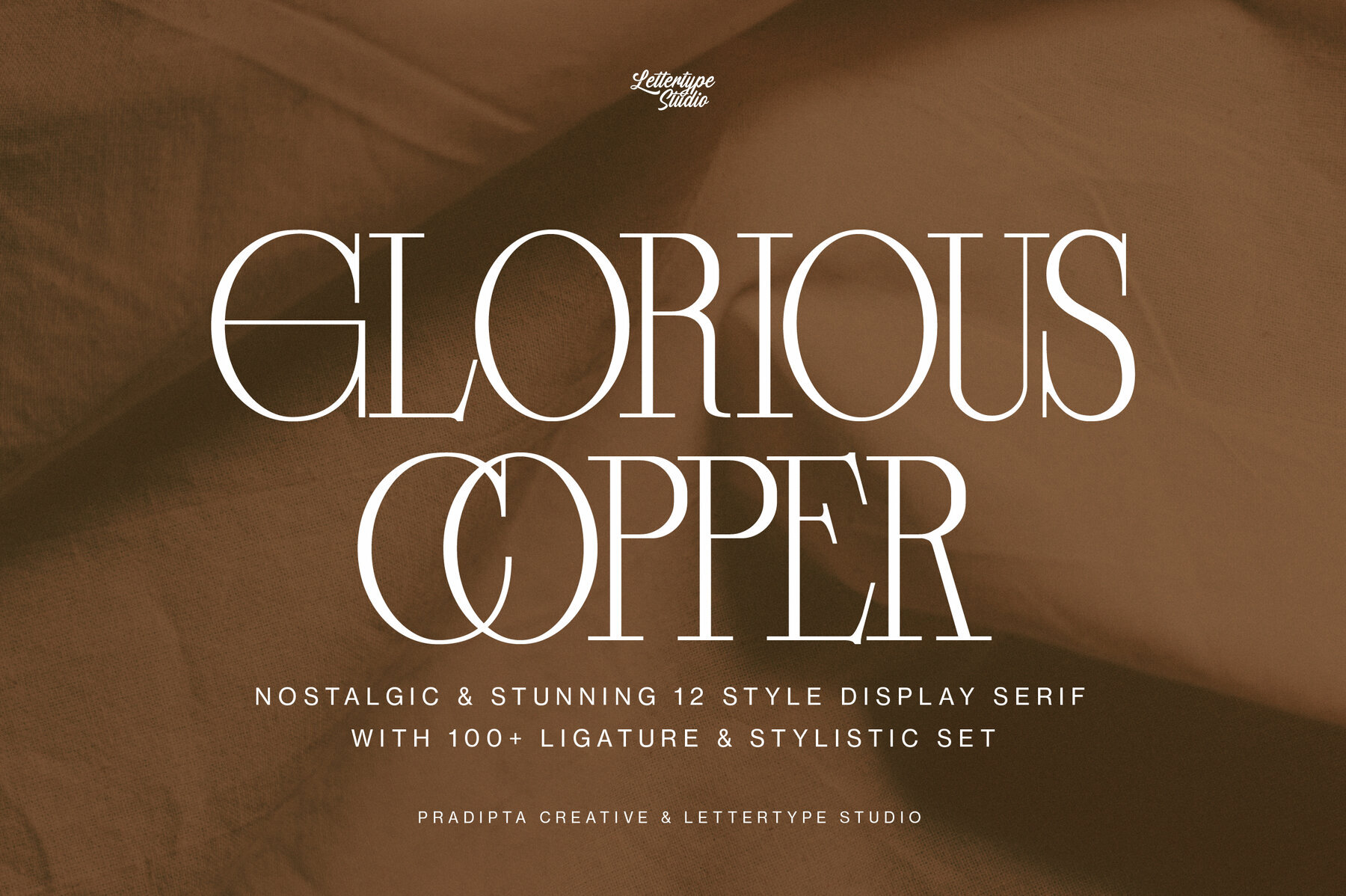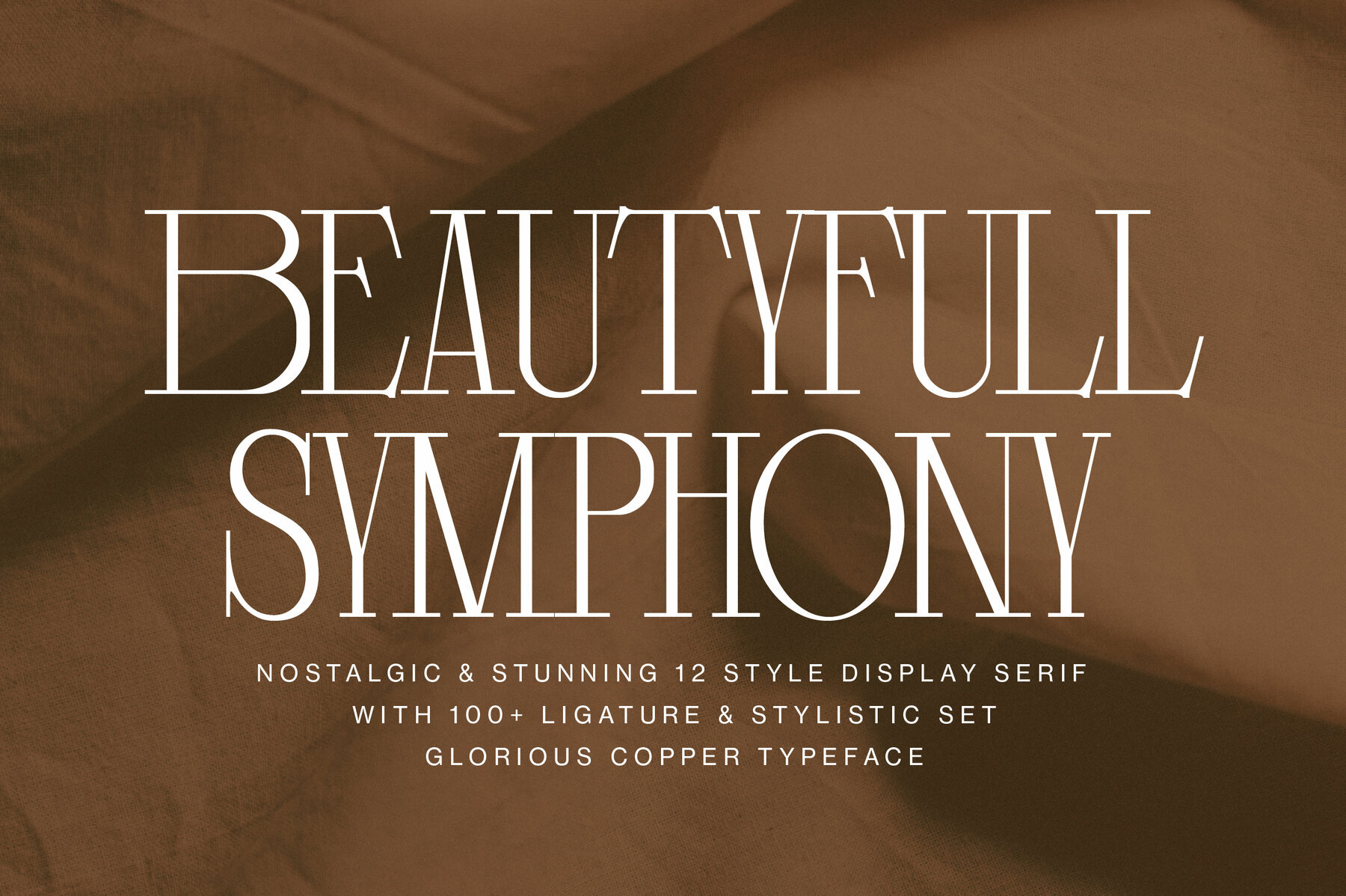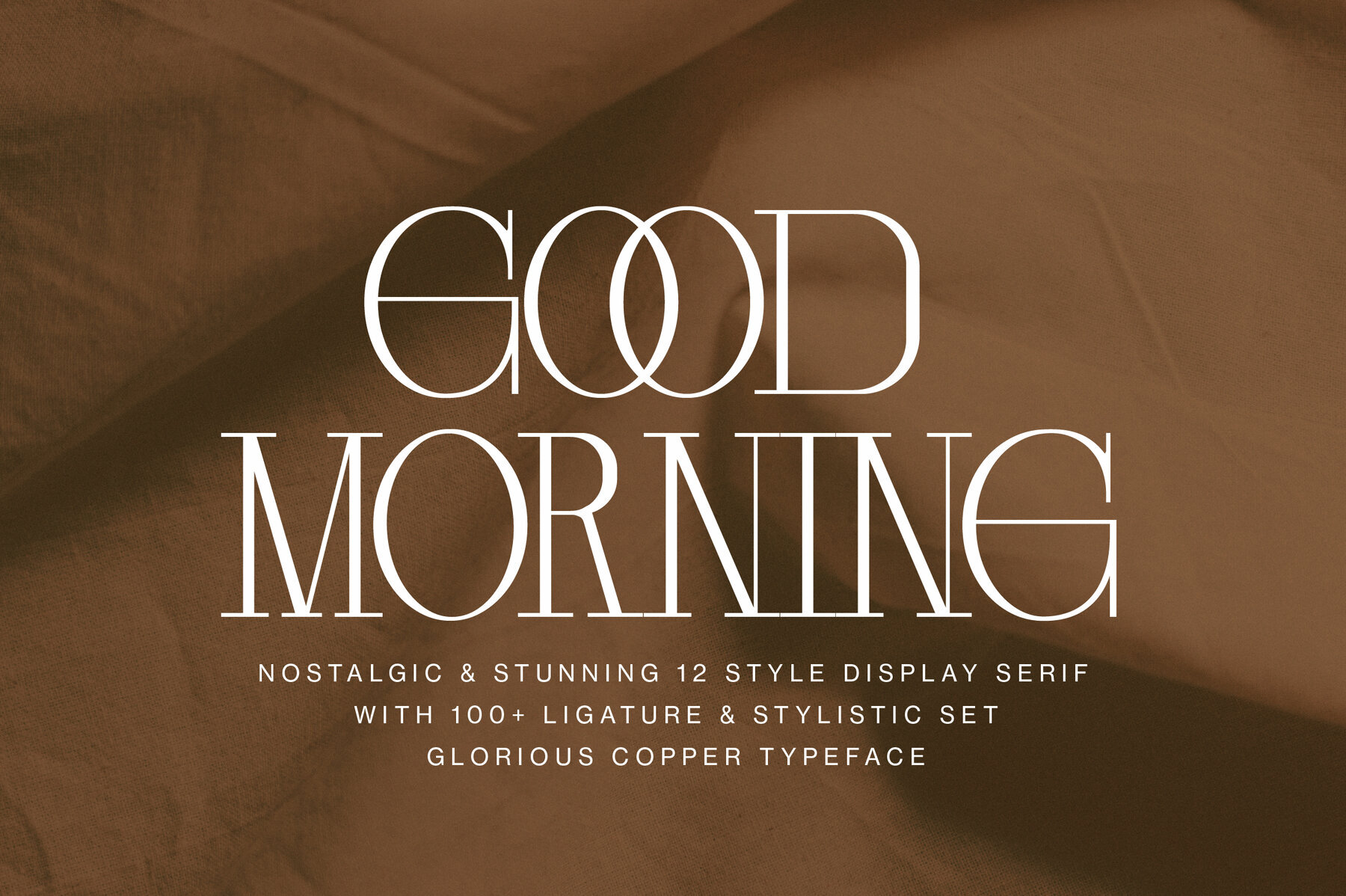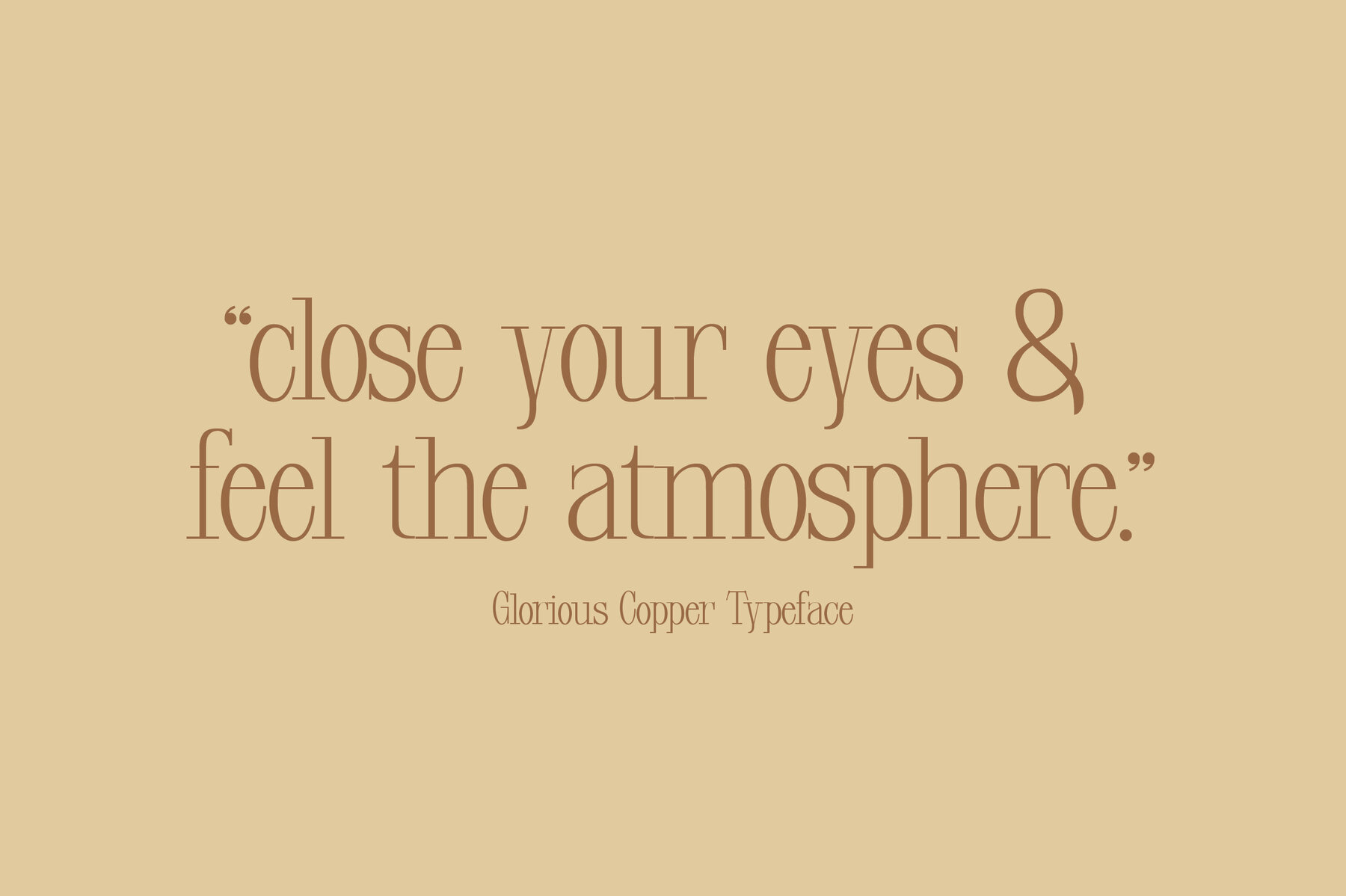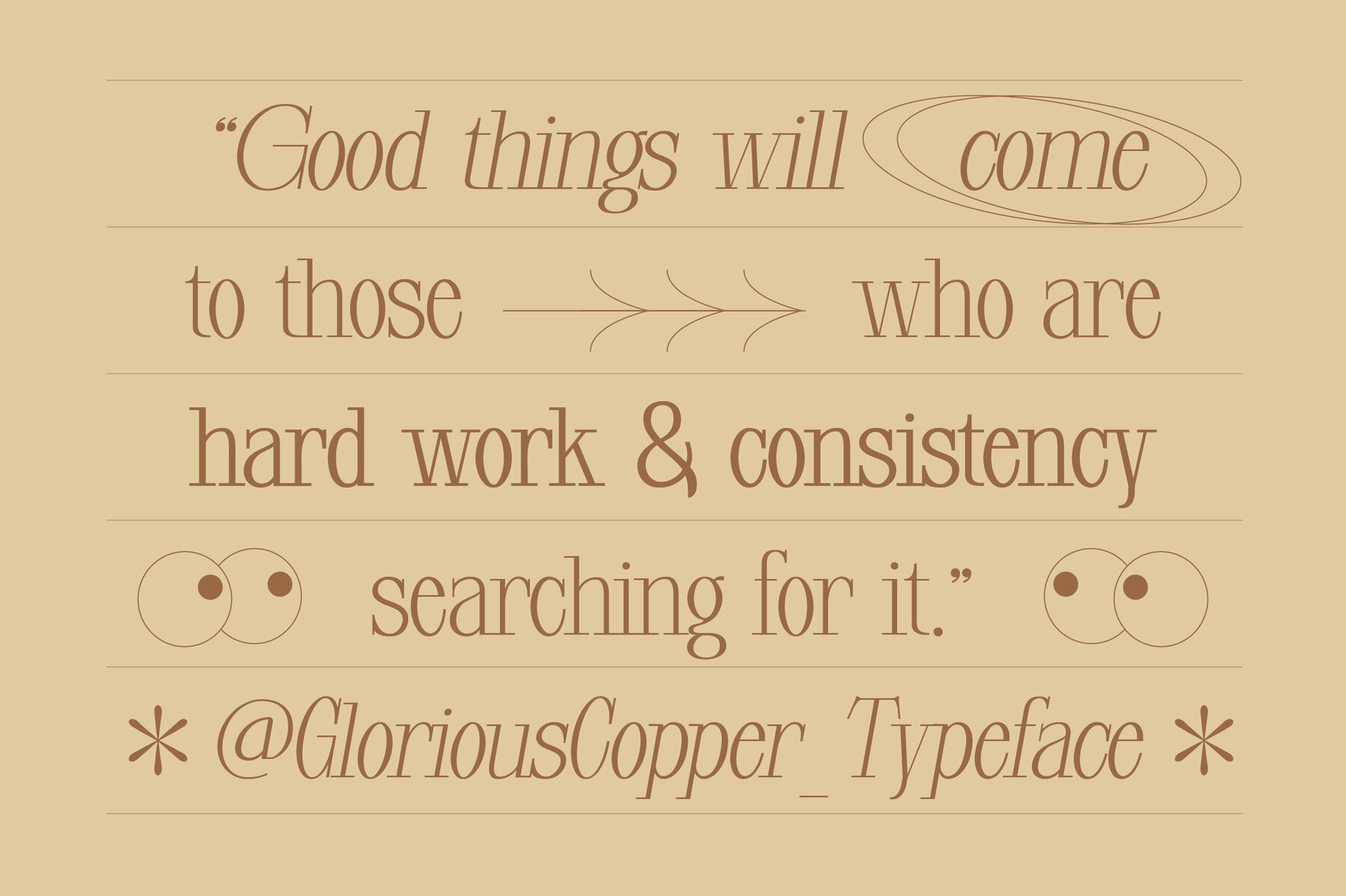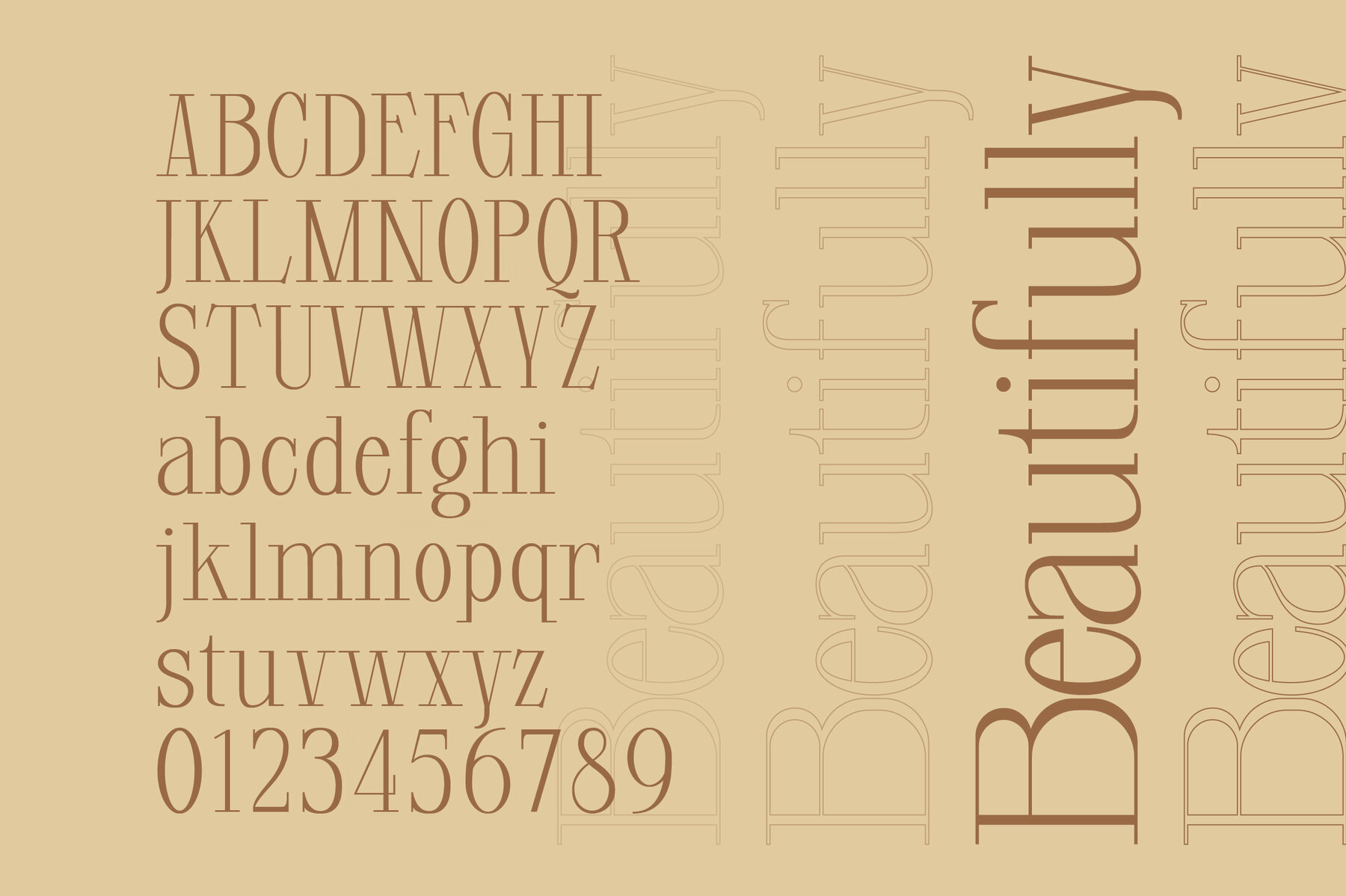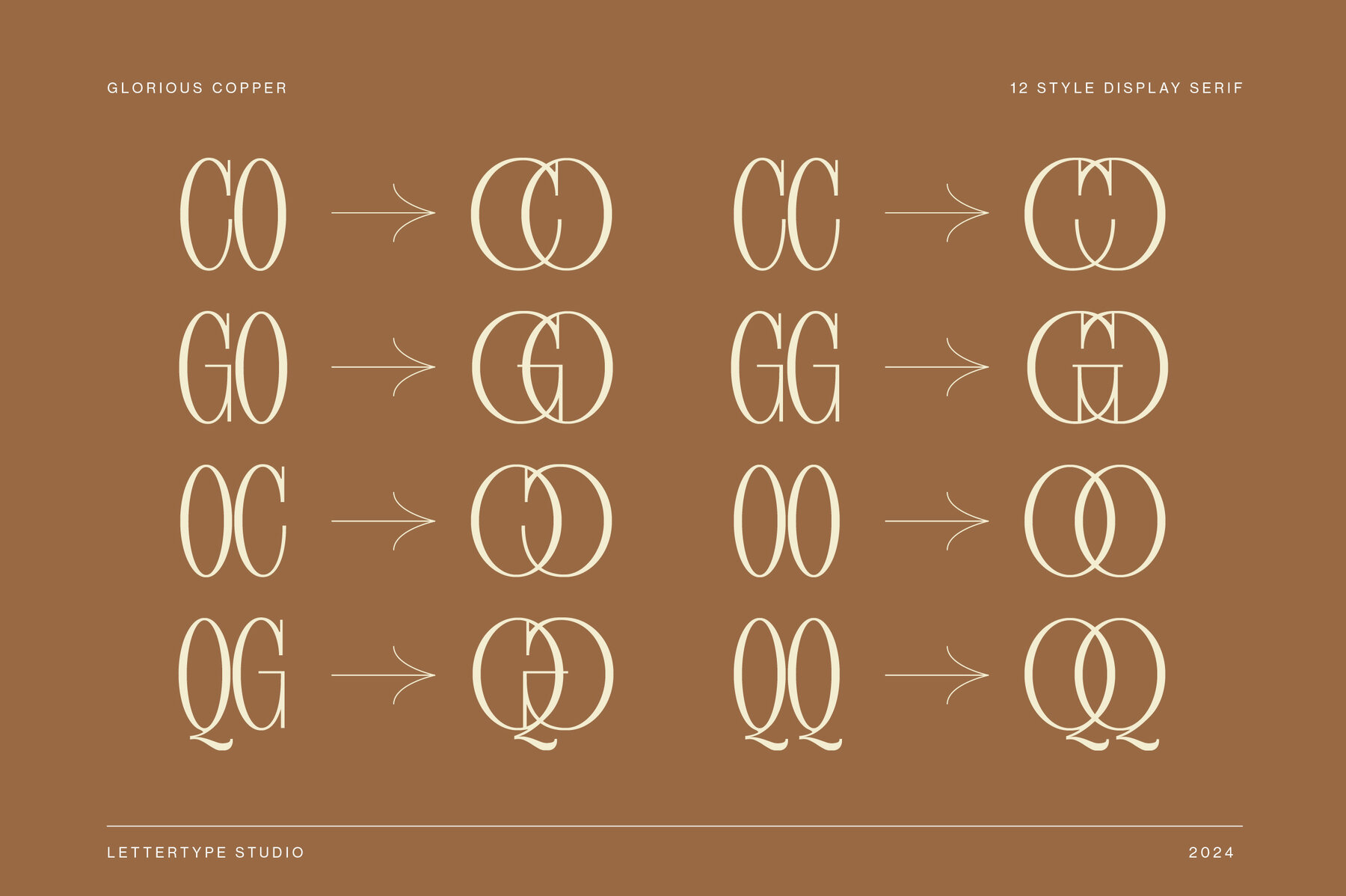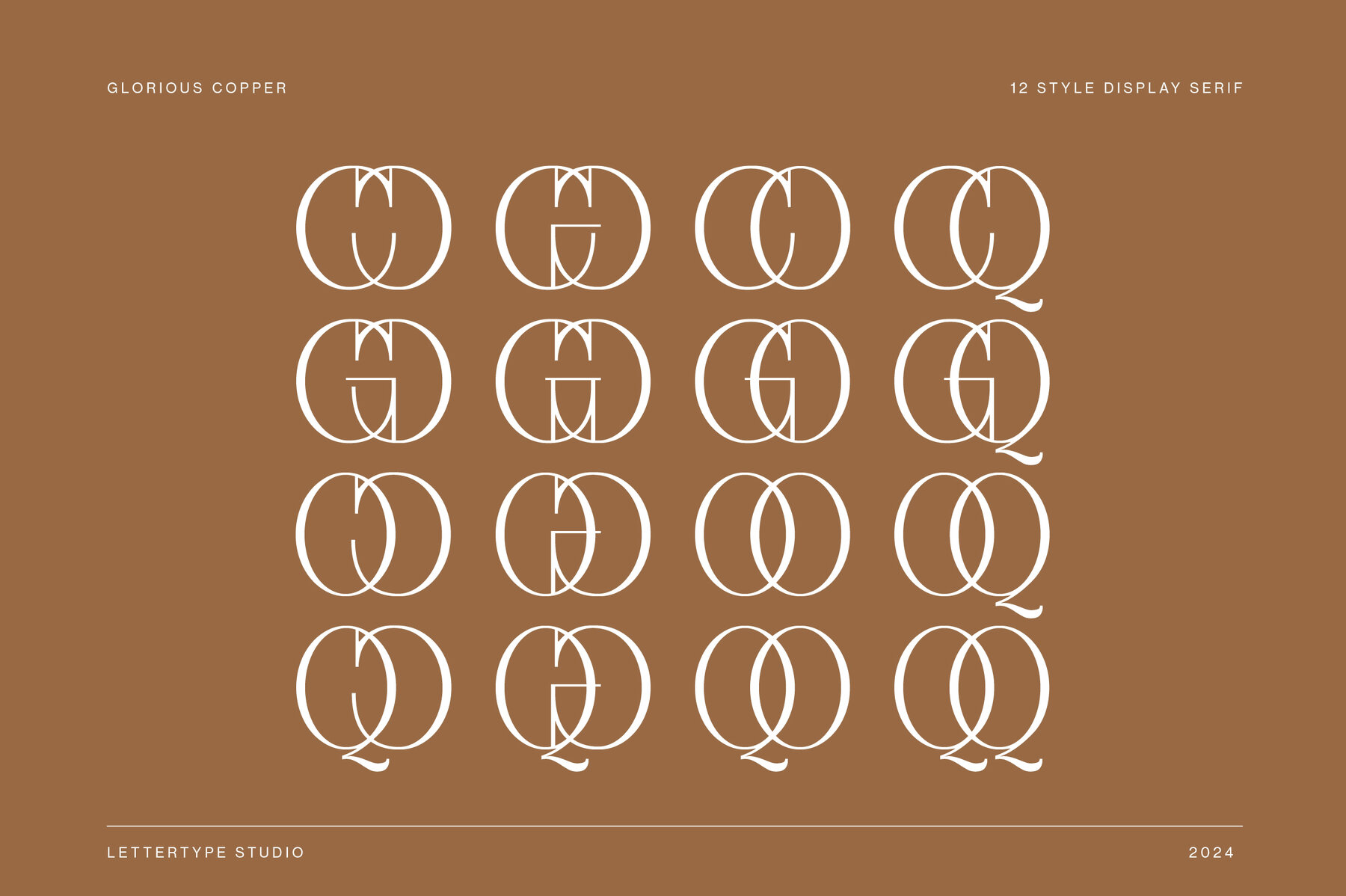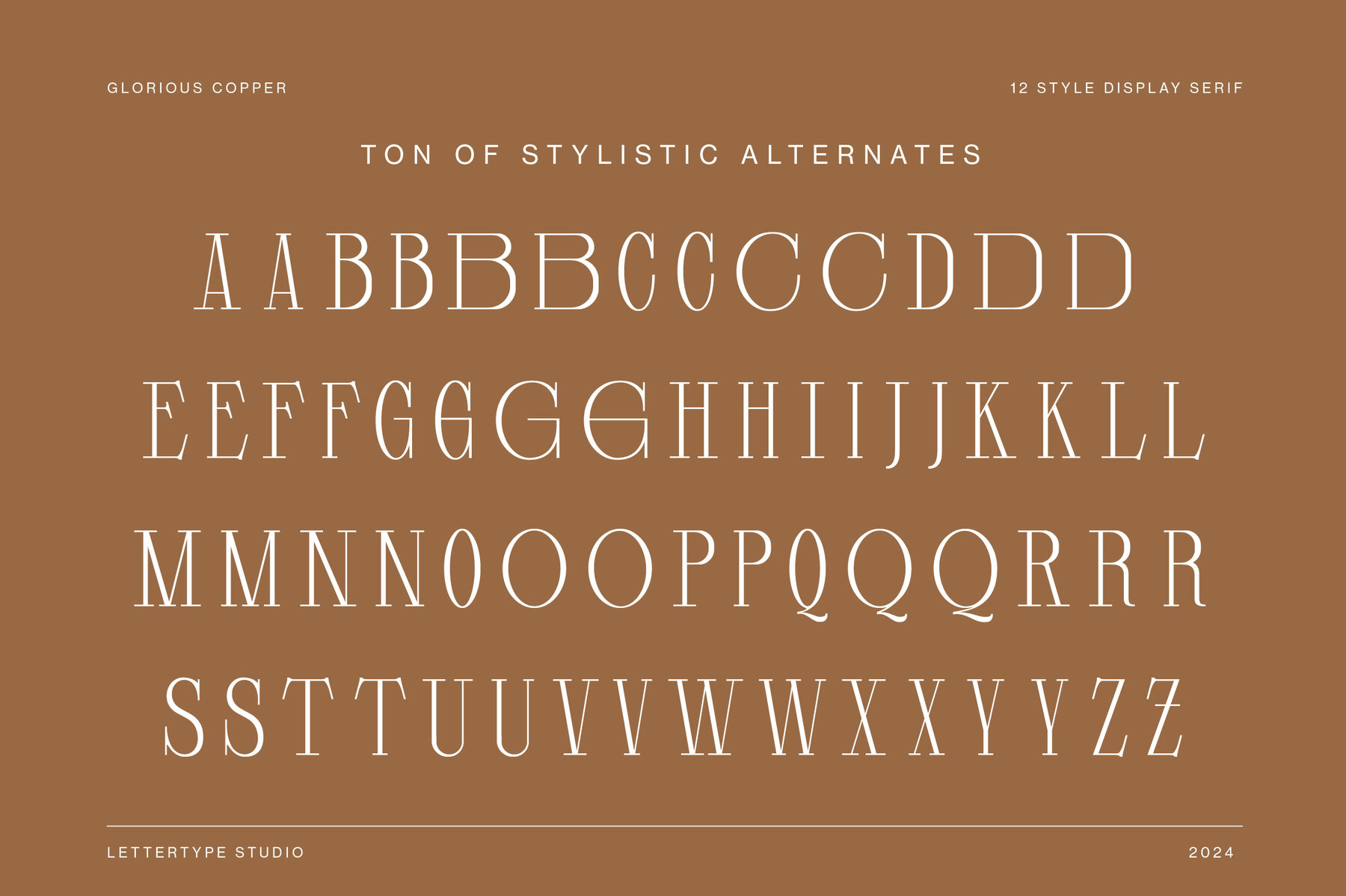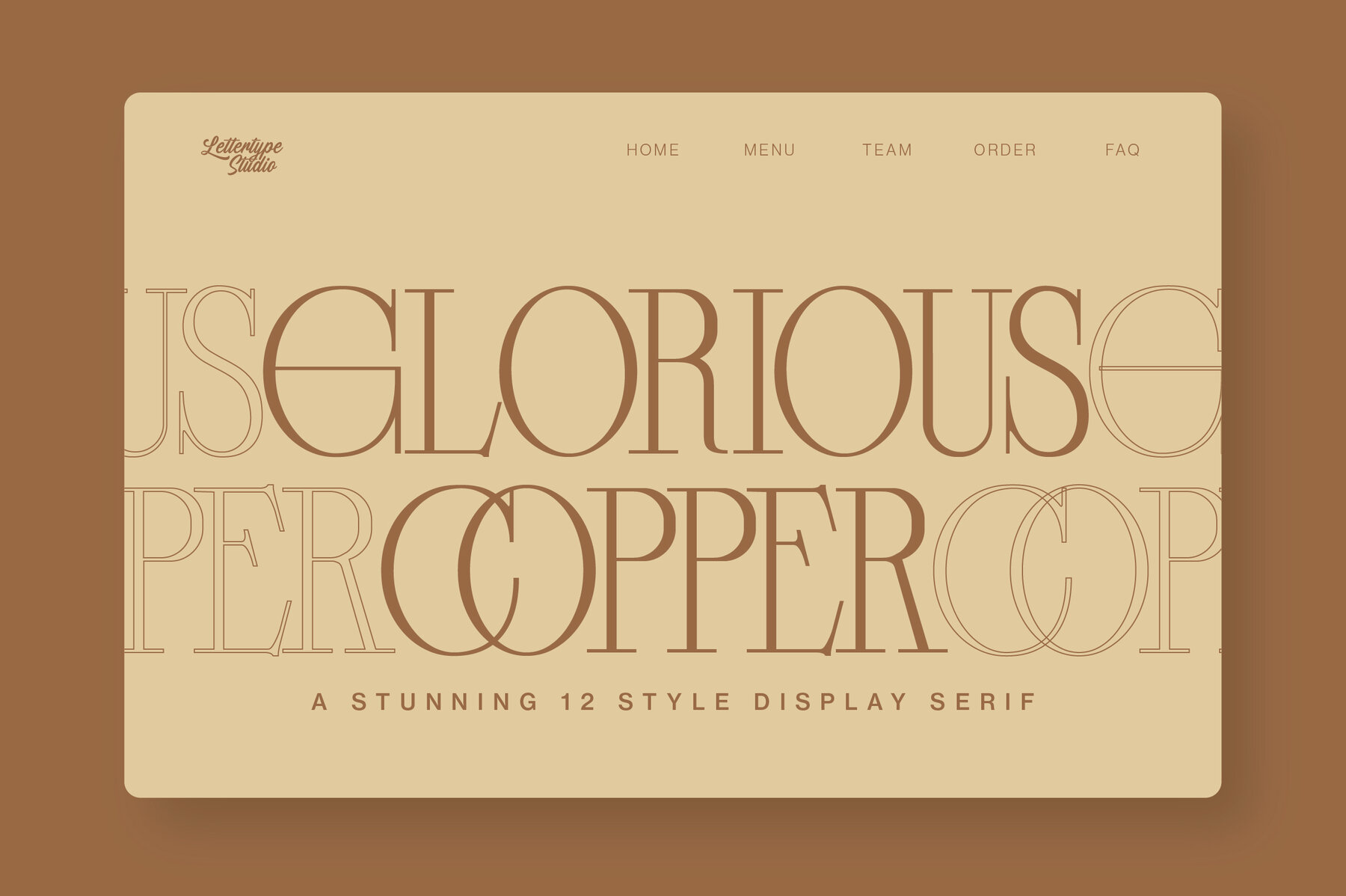
Glorious Copper Font
Embrace timeless elegance with Glorious Copper, a captivating display serif crafted with a nod to nostalgia. Boasting twelve unique styles, this typeface incorporates over 100 ligatures and stylistic sets, perfect for projects that evoke a vintage allure. This versatile font excels in a range of creative applications, from logo designs and classic poster layouts to branding and wedding invitations. Whether you're crafting fashion lookbooks, book covers, or even food and beverage packaging, Glorious Copper offers a stylish solution. Its capabilities extend gracefully to quotes and text overlays, seamlessly enhancing any background image.Glorious Copper: A Nostalgic Display Serif